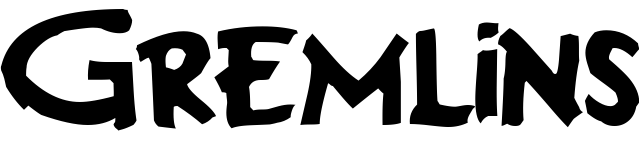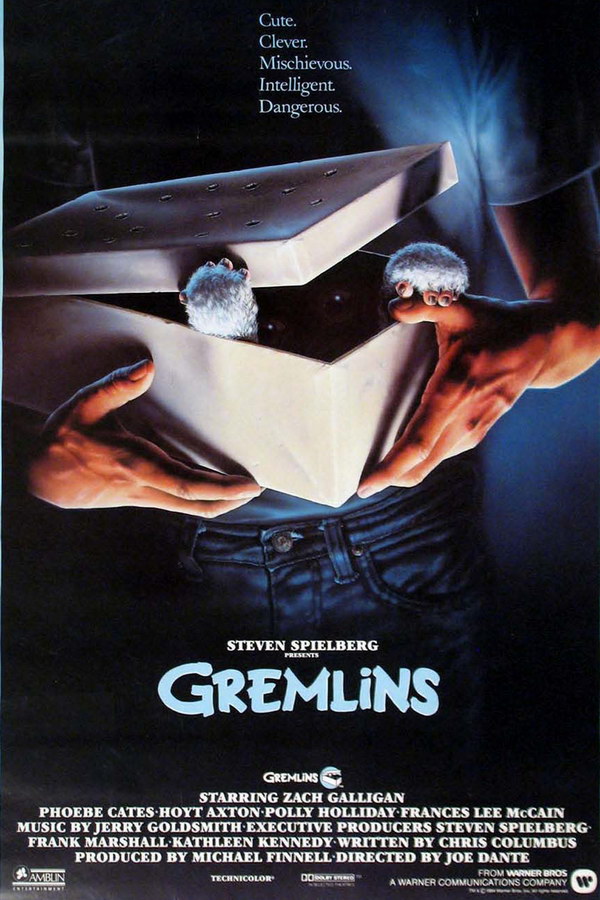
Gremlins Font
Fonts in UseGremlins is a 1984 comedy horror film directed by Joe Dante, about a young man who receives a strange creature called a Mogwai as a pet, which spawns a horde of mischievous and destructive monsters. The film became a cult classic and spawned a sequel, "Gremlins 2: The New Batch."